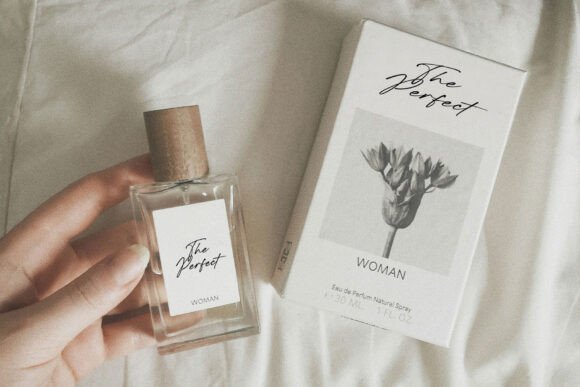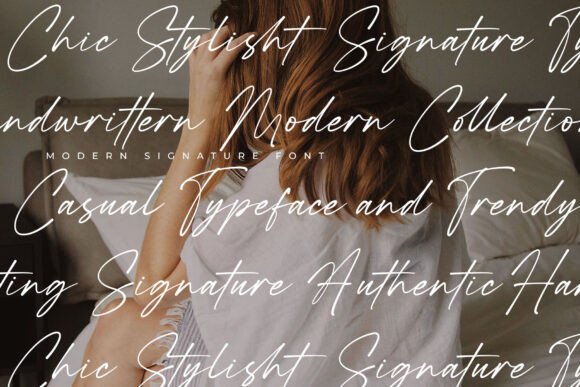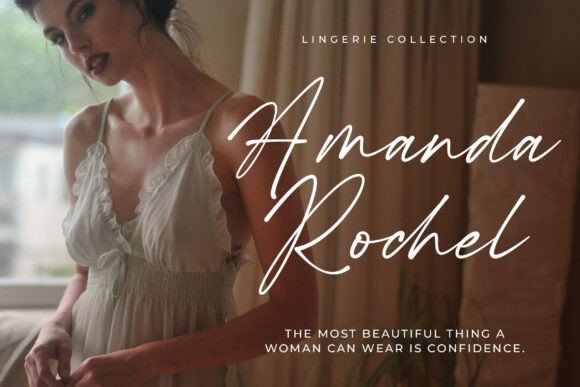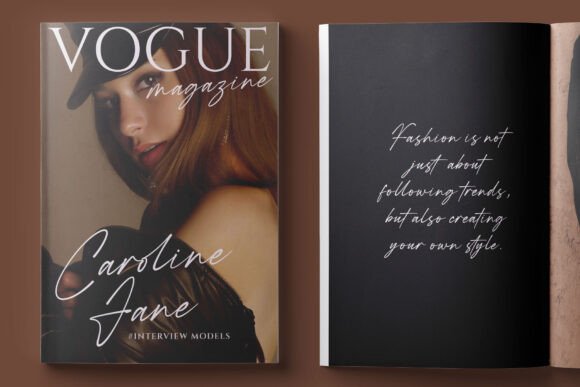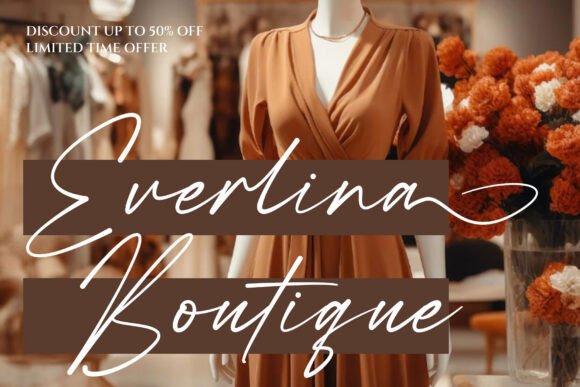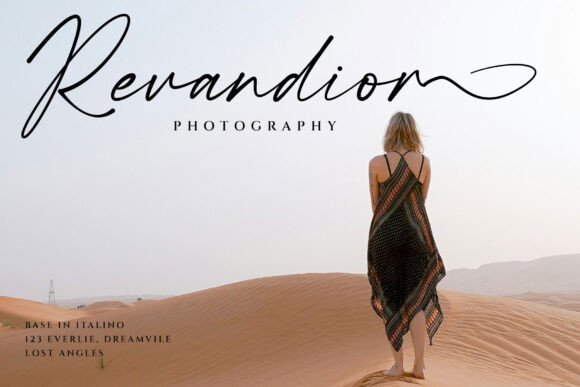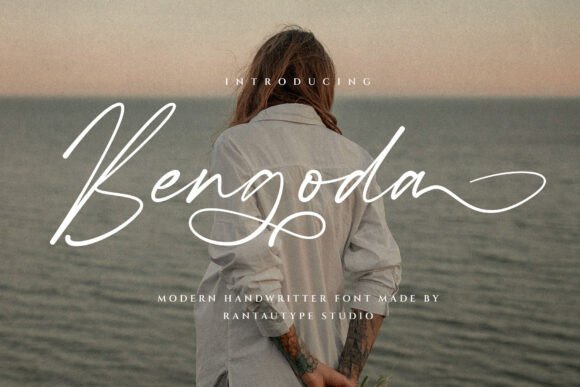
Bengoda Font: Elevate Your Creativity with Elegance
In the world of typography, fonts play a crucial role in bringing creative ideas to life. For designers, crafters, and DIY enthusiasts, finding the perfect font can be a daunting task. However, if you’re looking for a magical script font that exudes elegance, look no further than Bengoda Font. In this article, we’ll explore the features and benefits of Bengoda Font, and how it can transform your creative projects into true works of art.
The Story Behind Bengoda Font
Bengoda Font is a carefully crafted script font that combines the beauty of calligraphy with a touch of modern elegance. Its unique design makes it an ideal choice for a wide range of creative projects, from Instagram posts to DIY crafts. Whether you’re a professional designer or a hobbyist, Bengoda Font is sure to inspire your next creative endeavor.
Key Features of Bengoda Font
- Magical Script Font: Bengoda Font boasts a whimsical and enchanting design that adds a touch of magic to any project.
- Elegant and Sophisticated: With its flowing lines and curves, Bengoda Font exudes elegance and sophistication, making it perfect for high-end designs.
- Versatile: Bengoda Font can be used for a wide range of projects, including Instagram posts, DIY crafts, invitations, and more.
Why Choose Bengoda Font?
So, why should you choose Bengoda Font for your next project? Here are just a few reasons:
- Stand Out from the Crowd: Bengoda Font’s unique design ensures that your project will stand out from the crowd and grab attention.
- Add a Touch of Elegance: Bengoda Font’s elegant design adds a touch of sophistication to any project, making it perfect for high-end designs.
- Inspire Your Creativity: Bengoda Font’s magical and whimsical design is sure to inspire your creativity and help you come up with new and innovative ideas.
Using Bengoda Font for Instagram and DIY Projects
Bengoda Font is an excellent choice for Instagram posts and DIY projects. Here are a few ideas to get you started:
- Instagram Posts: Use Bengoda Font to create eye-catching Instagram posts that showcase your creativity and style.
- DIY Crafts: Add a touch of elegance to your DIY crafts, such as handmade cards, gift tags, and more.
- Calligraphy Projects: Bengoda Font is perfect for calligraphy projects, such as creating beautiful quotes, phrases, and more.
Tips and Tricks for Using Bengoda Font
Here are a few tips and tricks to help you get the most out of Bengoda Font:
- Experiment with Colors: Bengoda Font looks great in a variety of colors, so don’t be afraid to experiment and find the perfect hue for your project.
- Play with Sizes: Bengoda Font can be used in a range of sizes, from small and delicate to large and bold.
- Combine with Other Fonts: Bengoda Font pairs well with other fonts, so feel free to experiment with combining it with other typography styles.
In conclusion, Bengoda Font is a magical script font that is sure to elevate your creativity and add a touch of elegance to any project. With its unique design, versatility, and ease of use, Bengoda Font is an excellent choice for designers, crafters, and DIY enthusiasts. Whether you’re looking for fonts for Instagram or calligraphy scripts for DIY projects, Bengoda Font is the perfect choice. So why wait? Download Bengoda Font today and start creating your own true works of art!